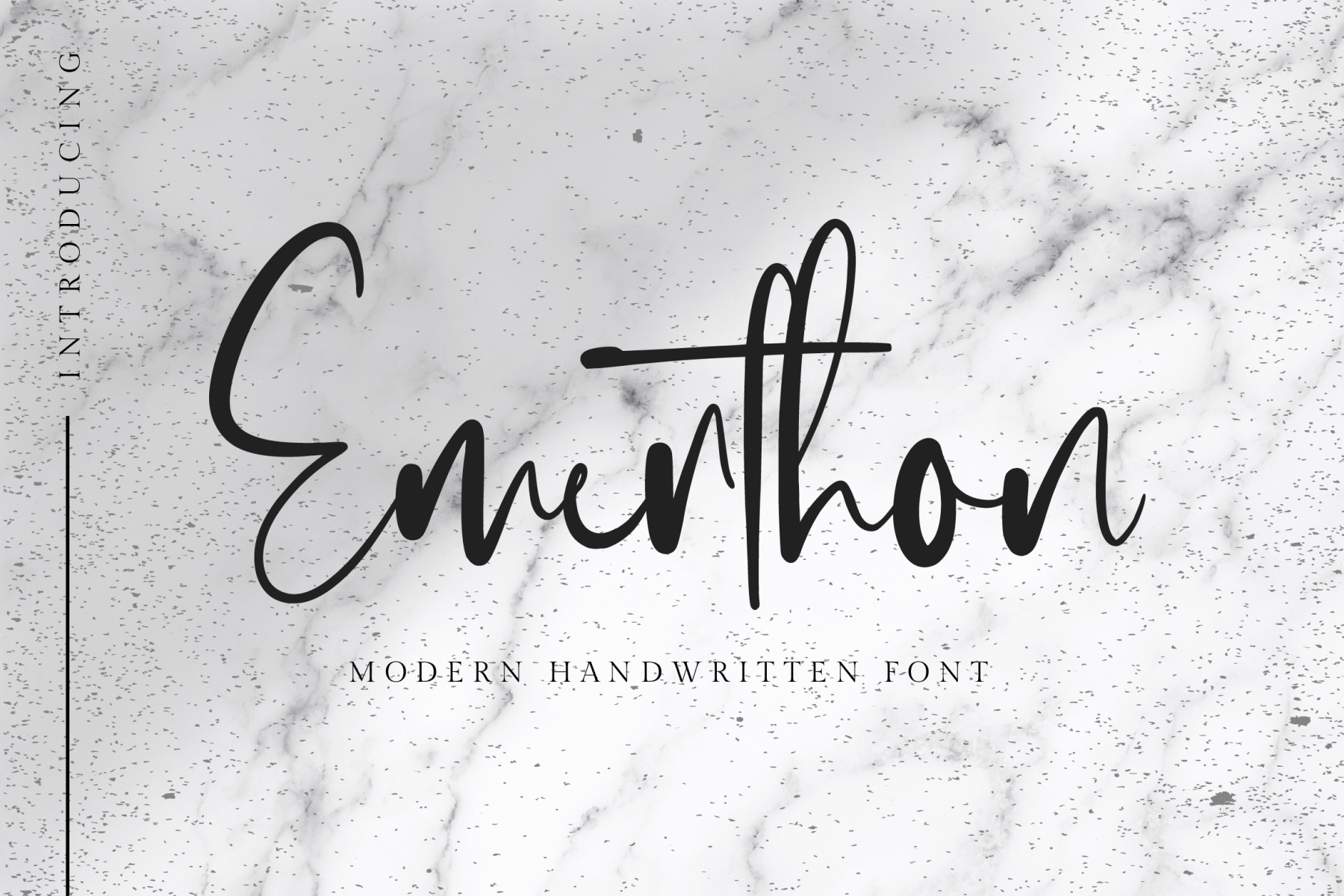
Emerthon - Modern Handwritten Font
Emerthon - Handwritten Font is a modern signature font. Perfect for logo, invitation, stationery, wedding designs, social media posts, advertisements, product packaging, product designs, label, photography, watermark, special events or anything. This font include : Emerthon OTF-TTF-WOFF, Ligatures, and also Multilingual support.